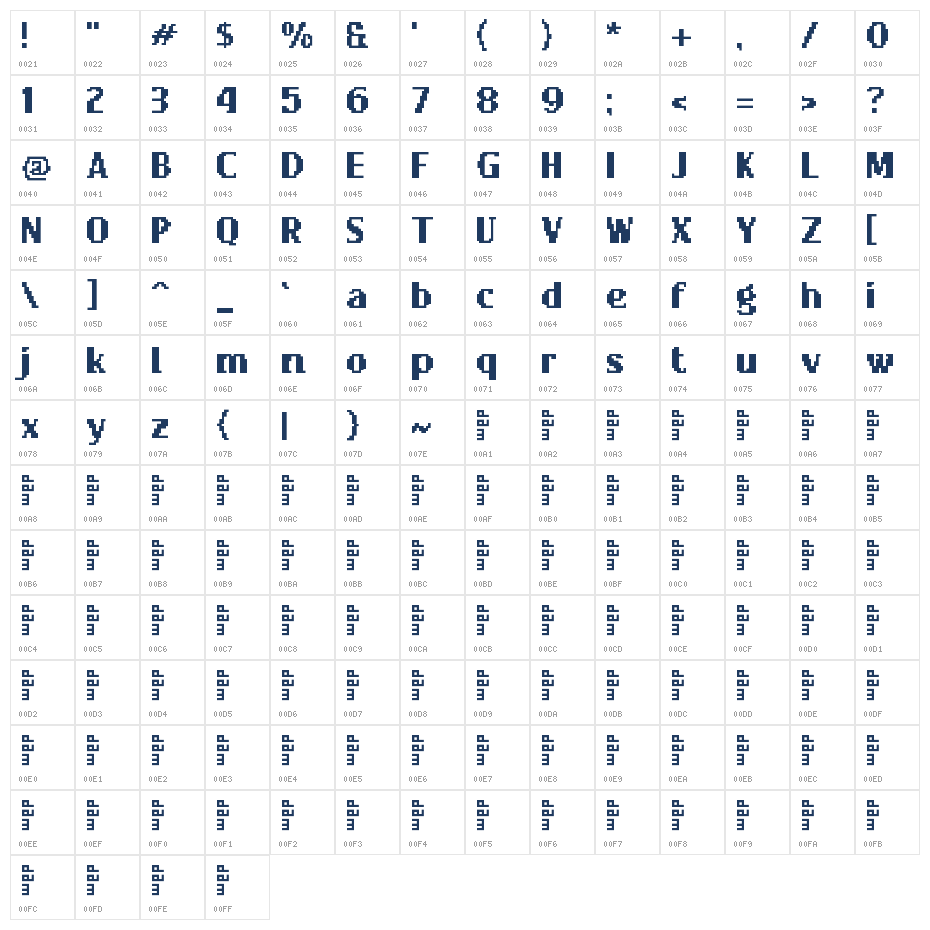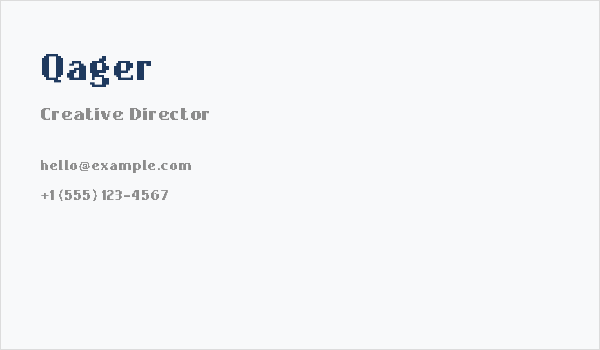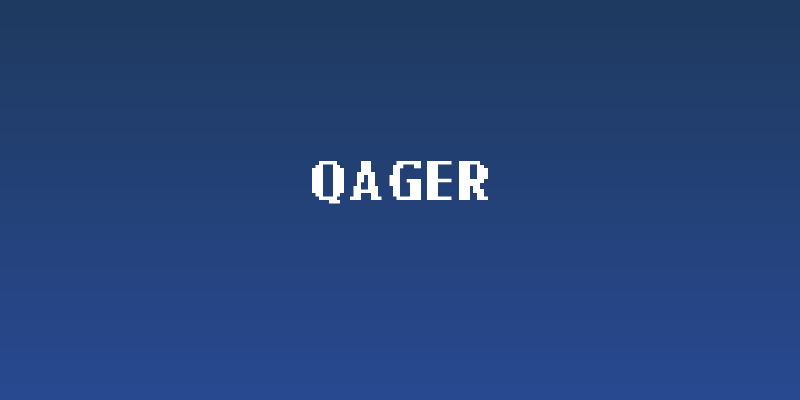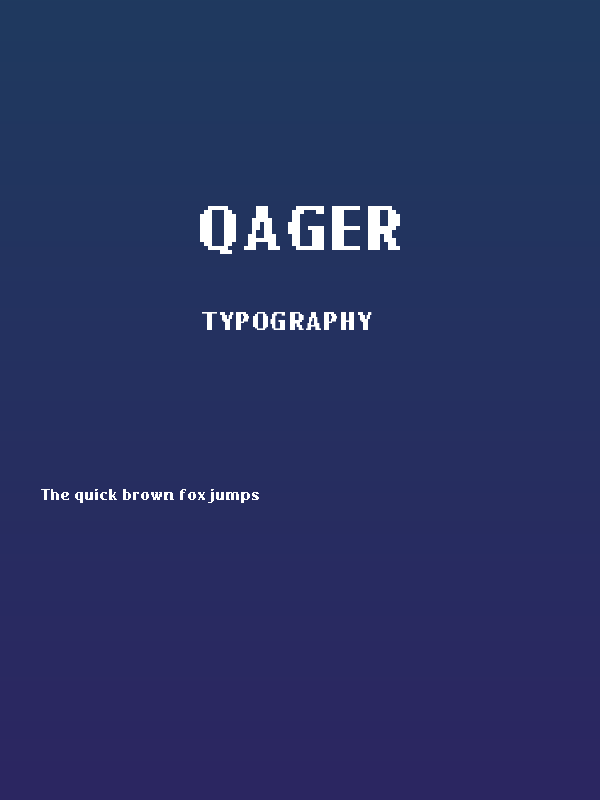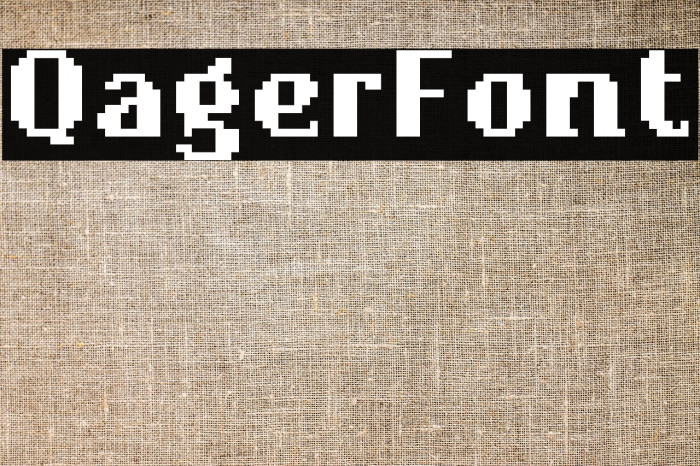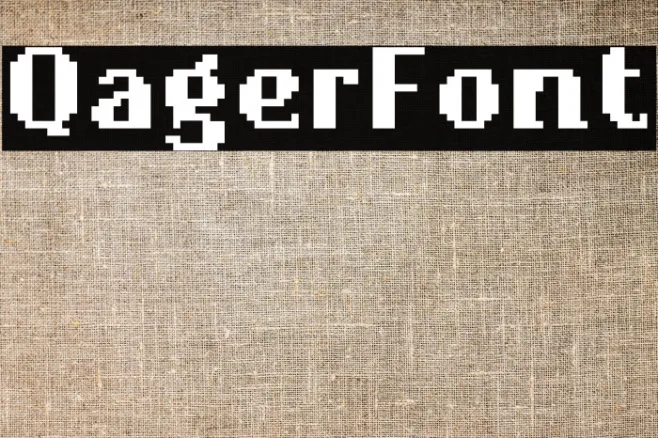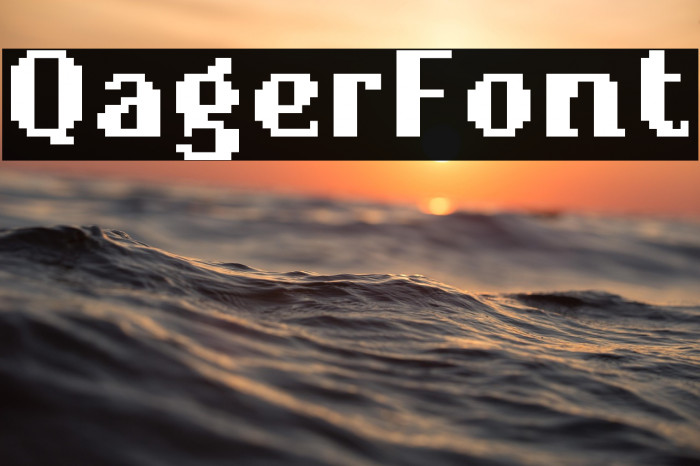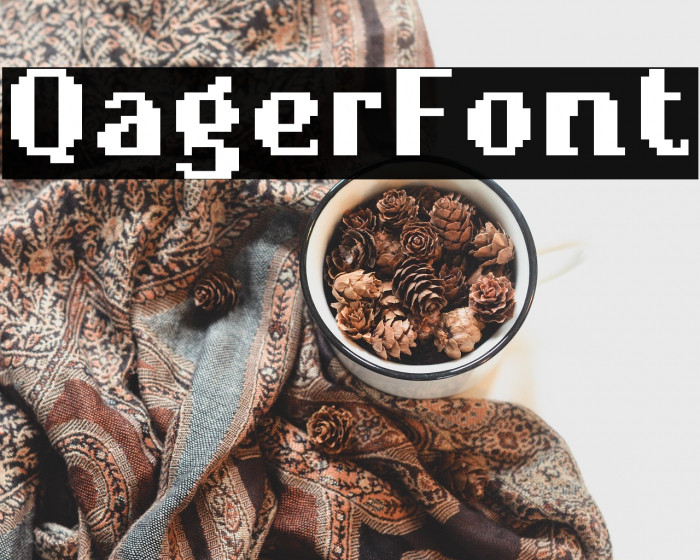
Qager Font
Qager Description
Pixelated, blocky, 8-bit style font with a retro digital appearance.
| Overall Style | Retro, Pixel Art, Digital |
| Use Case | Headlines, Titles, Digital displays, Video game interfaces |